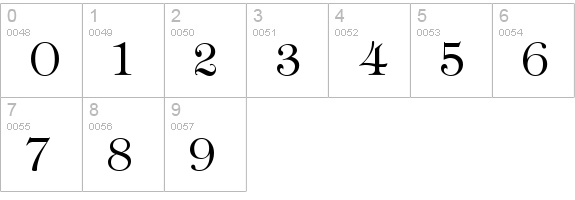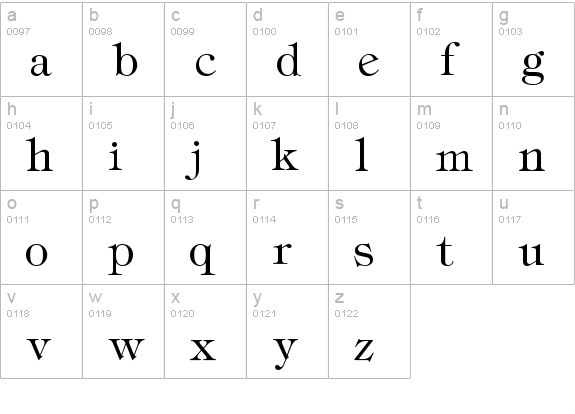
Tiffany Regular Font Details
Tiffany Regular is the standard, neutral variant in the Tiffany typeface family \xE2\x80\x94 well suited to general body text, paragraphs, and standard typographic work.
Tiffany Regular font is a timeless and versatile typeface that effortlessly captures elegance and sophistication. With its clean lines and refined curves, this font exudes a sense of grace and charm that is suitable for a wide range of design projects. Whether you are working on branding materials, wedding invitations, or editorial layouts, Tiffany Regular font will elevate your designs to new heights. Its classic yet contemporary look makes it perfect for both traditional and modern applications. What makes Tiffany Regular font even more appealing is that it is available for free download at FontsMarket.com. This means that you can effortlessly add a touch of class to your projects without any additional cost. Its availability on FontsMarket.com ensures that you can easily access this font and incorporate it into your designs with just a few clicks. With Tiffany Regular font, you have the freedom to create stunning visuals that leave a lasting impression. So why settle for ordinary when you can download this exceptional font for free? Upgrade your design game and make a statement with Tiffany Regular font from FontsMarket.com.